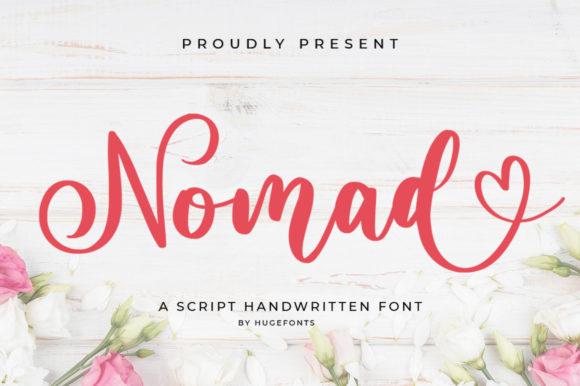
Introducing Nomad Font, an exquisite script font designed to captivate the hearts of all who lay their eyes upon it. This elegant font, meticulously crafted by Jupiter Studio, is a testament to the beauty and grace of handwritten calligraphy, rendered with a modern twist that sets it apart from the ordinary.
Nomad's delicate strokes and flowing curves dance across the page, creating a visual symphony that evokes a sense of whimsy and romance. Its meticulously designed ligatures and alternates add an extra layer of sophistication, making it the perfect choice for any project that demands a touch of elegance and charm.
Whether you're creating wedding invitations, designing logos, or crafting social media graphics, Nomad Font will transform your words into works of art. Its versatility extends to a wide range of design projects, allowing you to unleash your creativity and make a lasting impression.
Step into a world of enchantment with Nomad Font, where your words will shimmer like stars and your designs will capture the attention of all who encounter them. Experience the magic of Nomad Font today and elevate your creative endeavors to new heights.